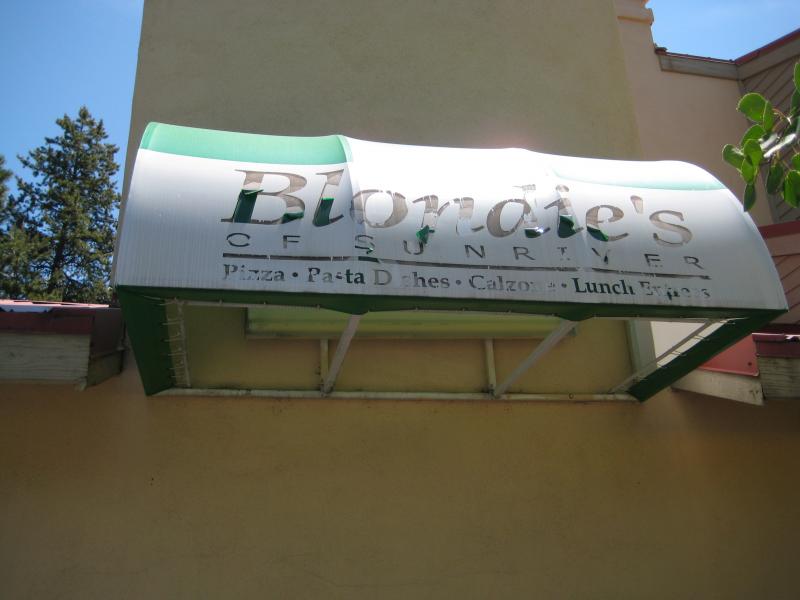
Really hate to do this... font help?
I know, it's easy as hell, but none of the fonts that I have match perfectly, and the cough syrup is not helping (been sick since thurs!). Looking for the exact "Blondies" font...
I hate to do this also but I doubt you'll get the exact font. It looks to me to be one of the many Garamonds but it could be from any number of other serif font families.
Note the application of the "die" has had the letters rotated almost to vertical from their original italic slanted position. The "s" doesn't appear to be the italic version at all.
If you have to have an exact match, then ask the customer to provide you something in print with Blondie's on it. Then scan and post that. If the customer doesn't have it and can't name the font used for their awning, then you should be free to pick something close.
So it's not just me. I was racking my brain thinking there was a simple answer, but as you pointed out, none of them fit perfectly. Considering its a rush, I will just match it as best I can!